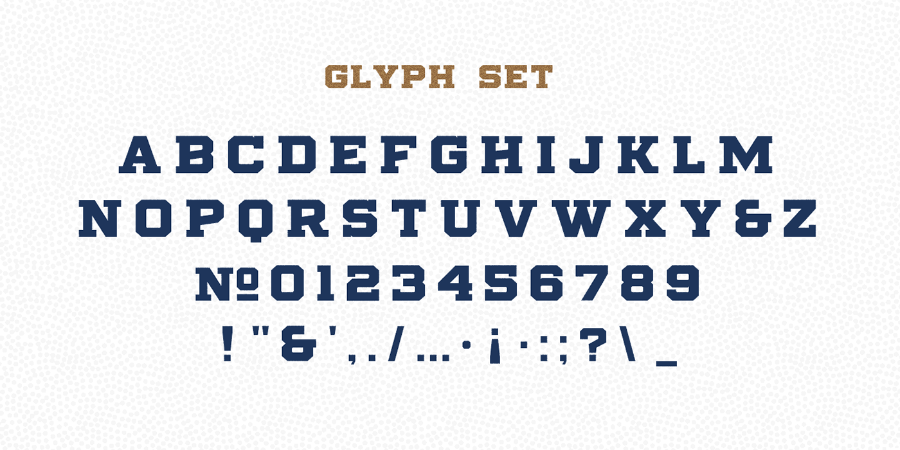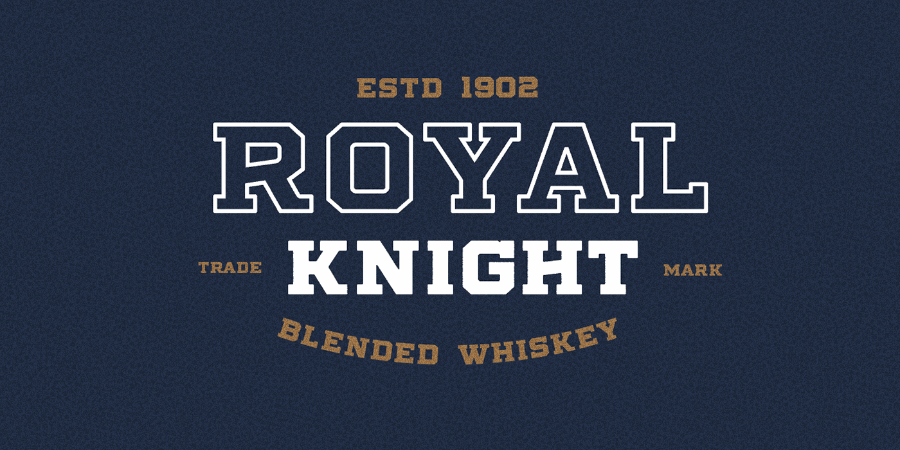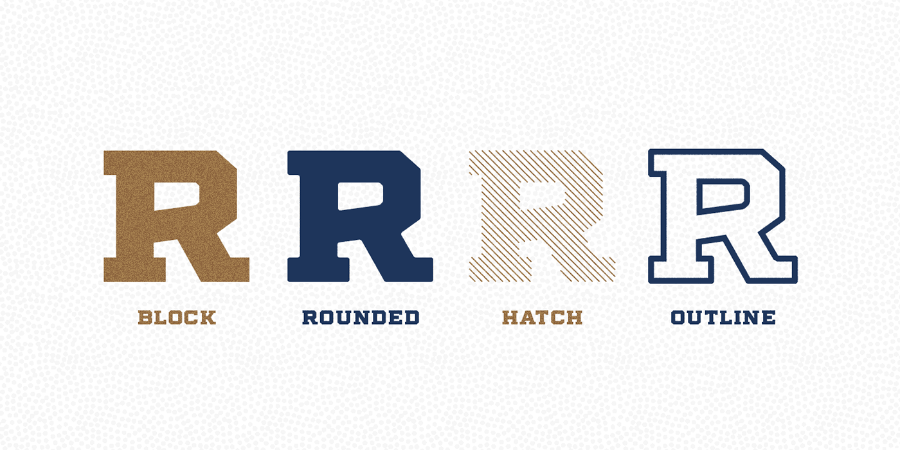
Stoneburg Block Free Font
From the latest work of Ilham Herry, proudly present you Stoneburg Block Free Font! Stoneburg comes with 4 styles, Block, Rounded, Outline, and Hatch. All these variations make it great for some mix and match as you want. This font is completely free which you can use for both personal and commercial use.